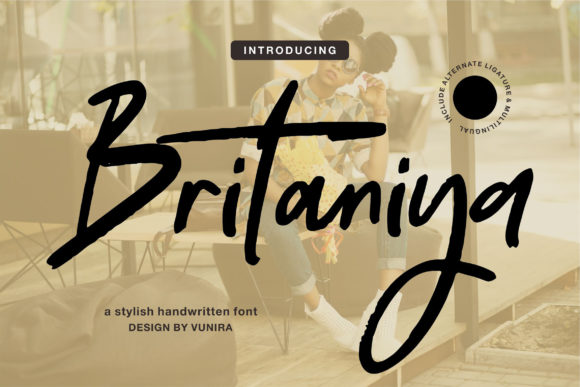
The Elusive Perfect Font: My Encounter with Britaniya
As a designer, I’ve had my fair share of late nights spent scrolling through font libraries, searching for that one perfect typeface to elevate a project. I recall working on a branding project for a luxury client, needing a font that exuded elegance and class. After hours of searching, I stumbled upon Britaniya Font – a stylish and relaxed handwritten font that instantly caught my eye.
An Honest Review of Britaniya Font
- 💫 Elegant and refined aesthetic, perfect for luxury brands or high-end designs
- 🌈 Beautifully crafted with a range of OpenType features and glyphs
- 📝 Supports multiple languages, making it a versatile choice
- ⚠️ Some users may find the font a tad too ornate for very casual or playful designs
- 🤔 Limited availability of certain stylistic alternates in older software
The Story Behind Britaniya: Designer Inspiration
Britaniya was crafted with the intention of providing designers with a versatile, elegant typeface. Inspired by classic calligraphy and refined handwritten scripts, Britaniya’s creator aimed to produce a font that would bring a touch of luxury to any design. With its refined lines and fluid strokes, Britaniya embodies both sophistication and approachability.
| What type of designs is Britaniya best suited for? | Britaniya is ideal for luxury brands, high-end designs, and projects requiring an elegant touch. |
| Is Britaniya suitable for body text? | While Britaniya is legible, it’s primarily designed for headings and titles. Consider a more straightforward font for extensive body text. |
| Does Britaniya support OpenType features? | Yes, Britaniya comes with a range of OpenType features, including ligatures and stylistic alternates, to enhance your designs. |